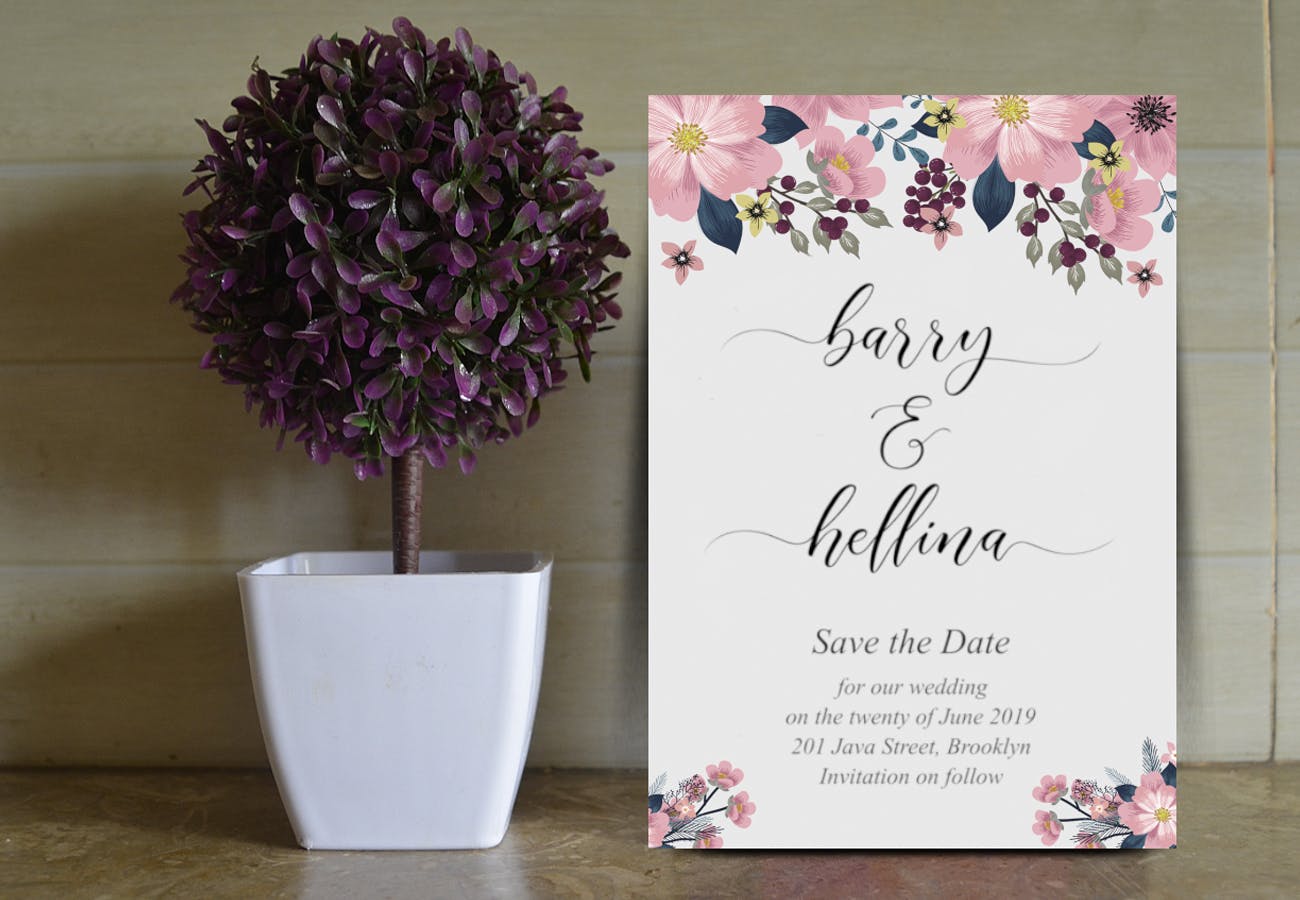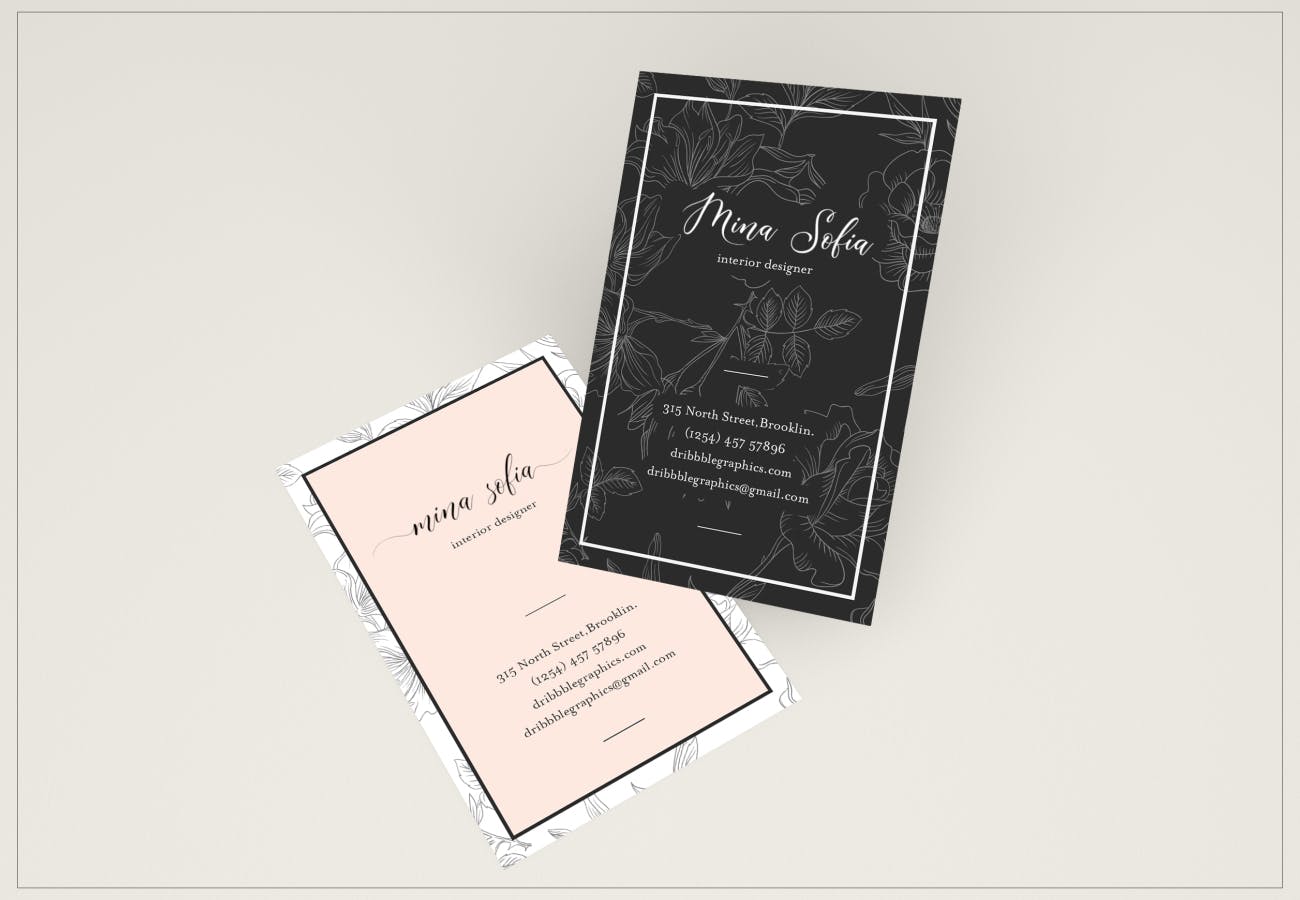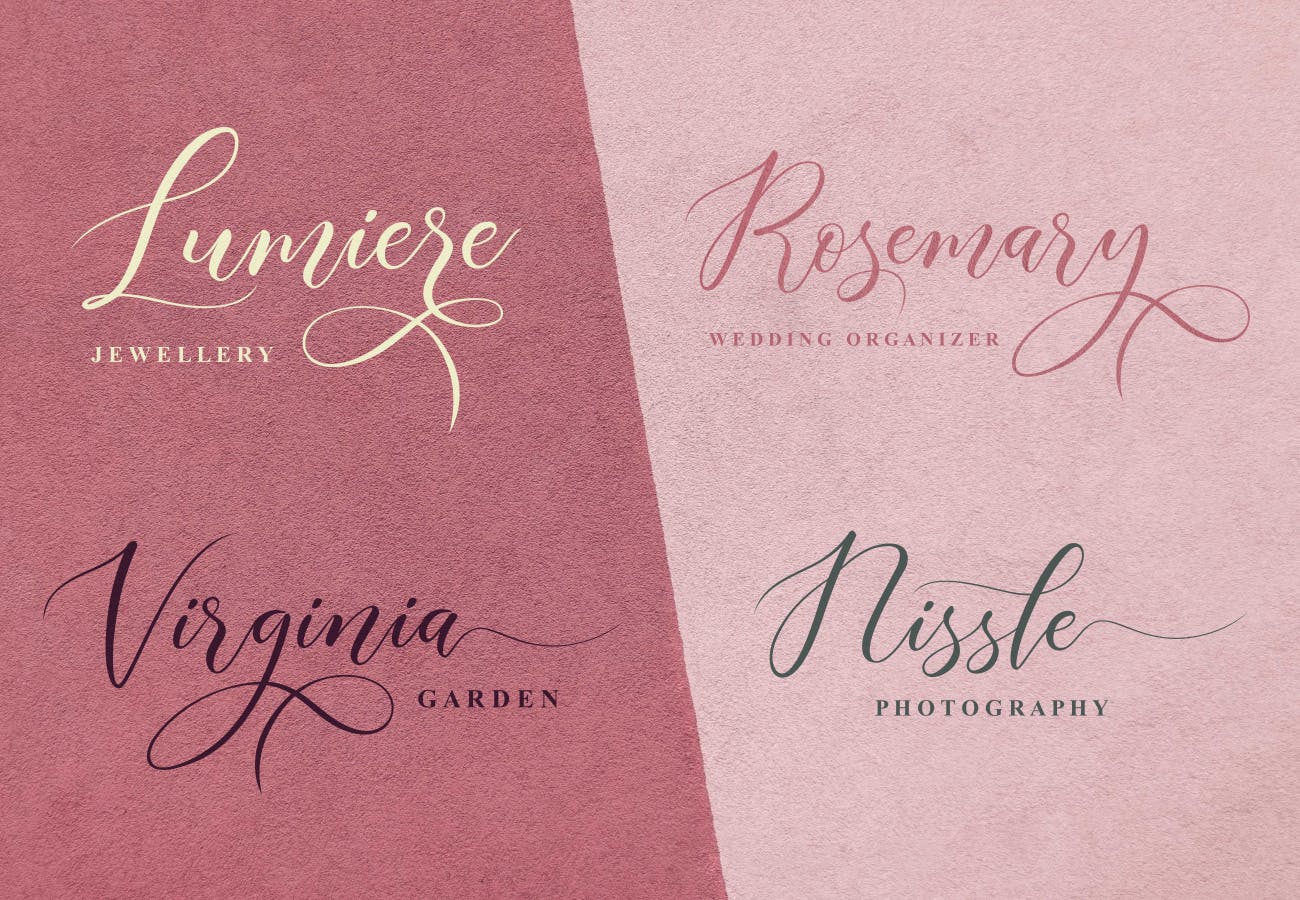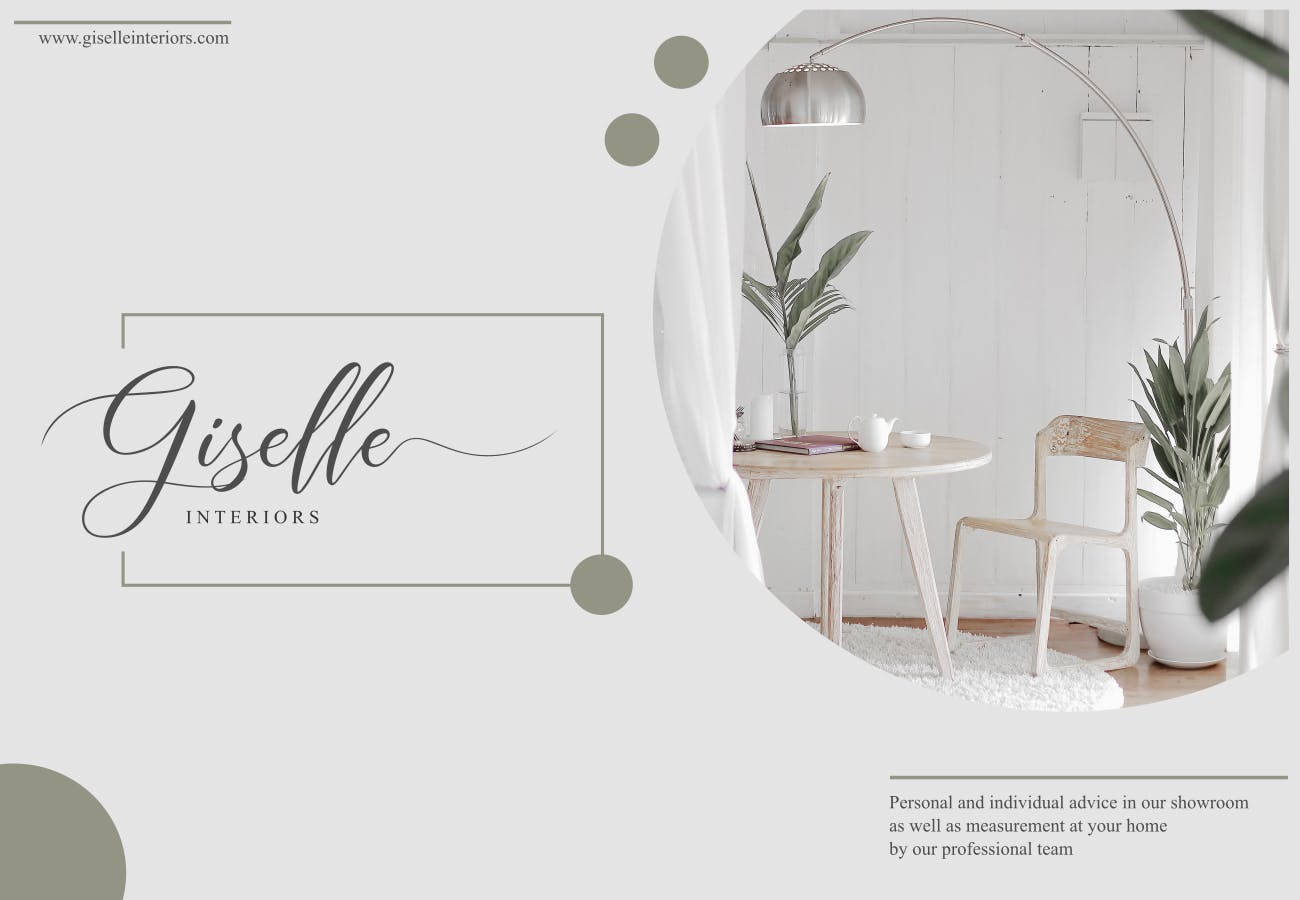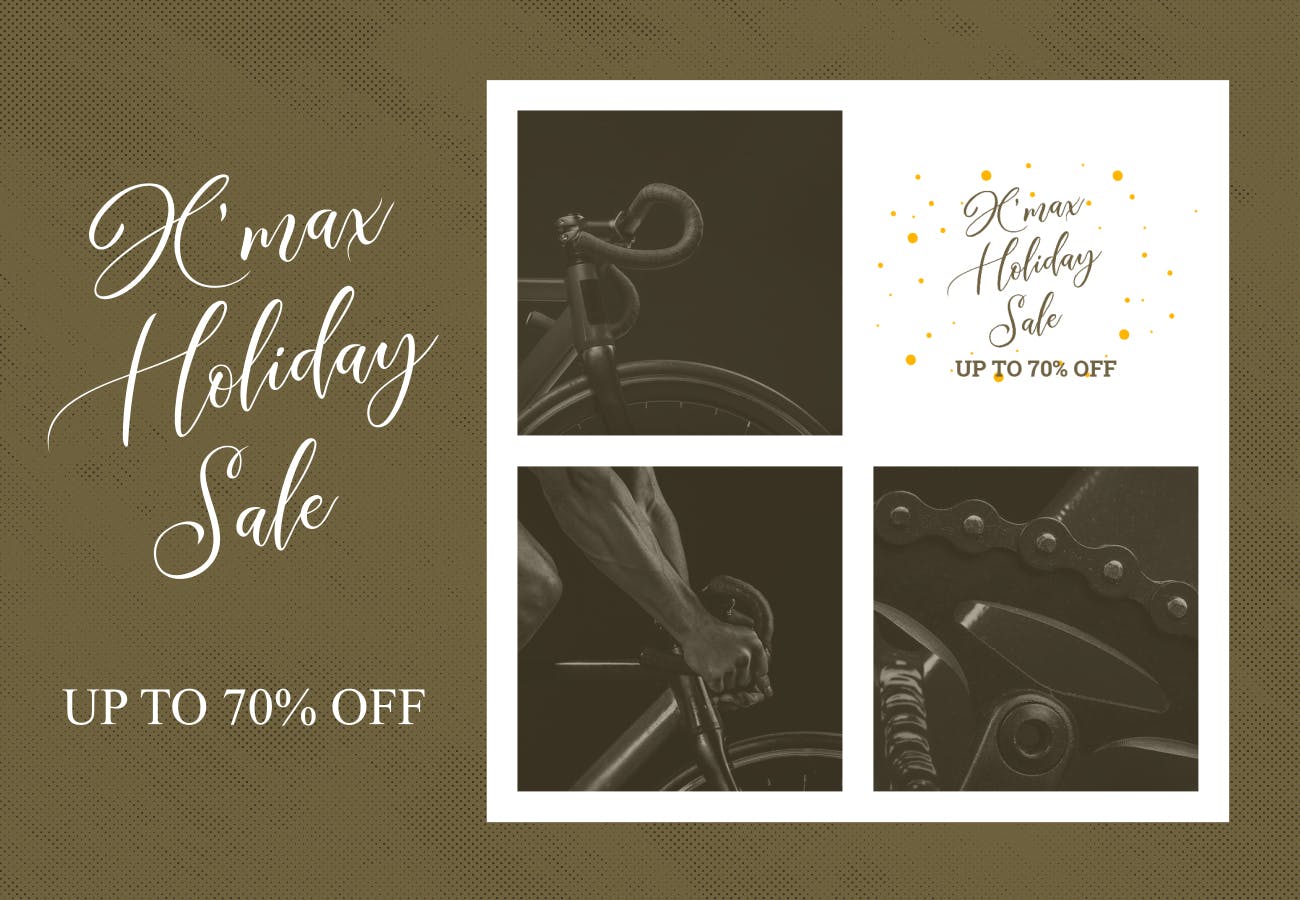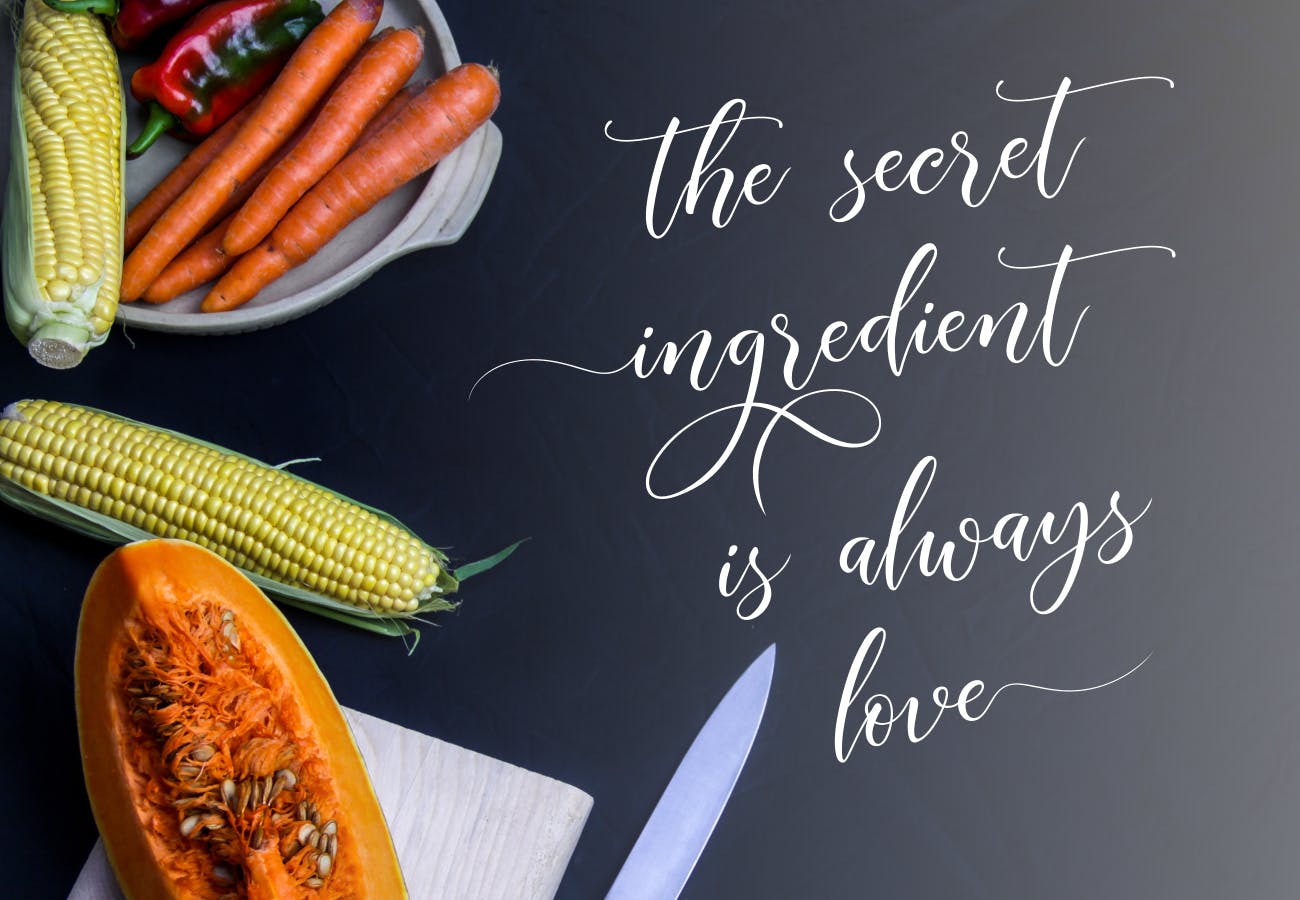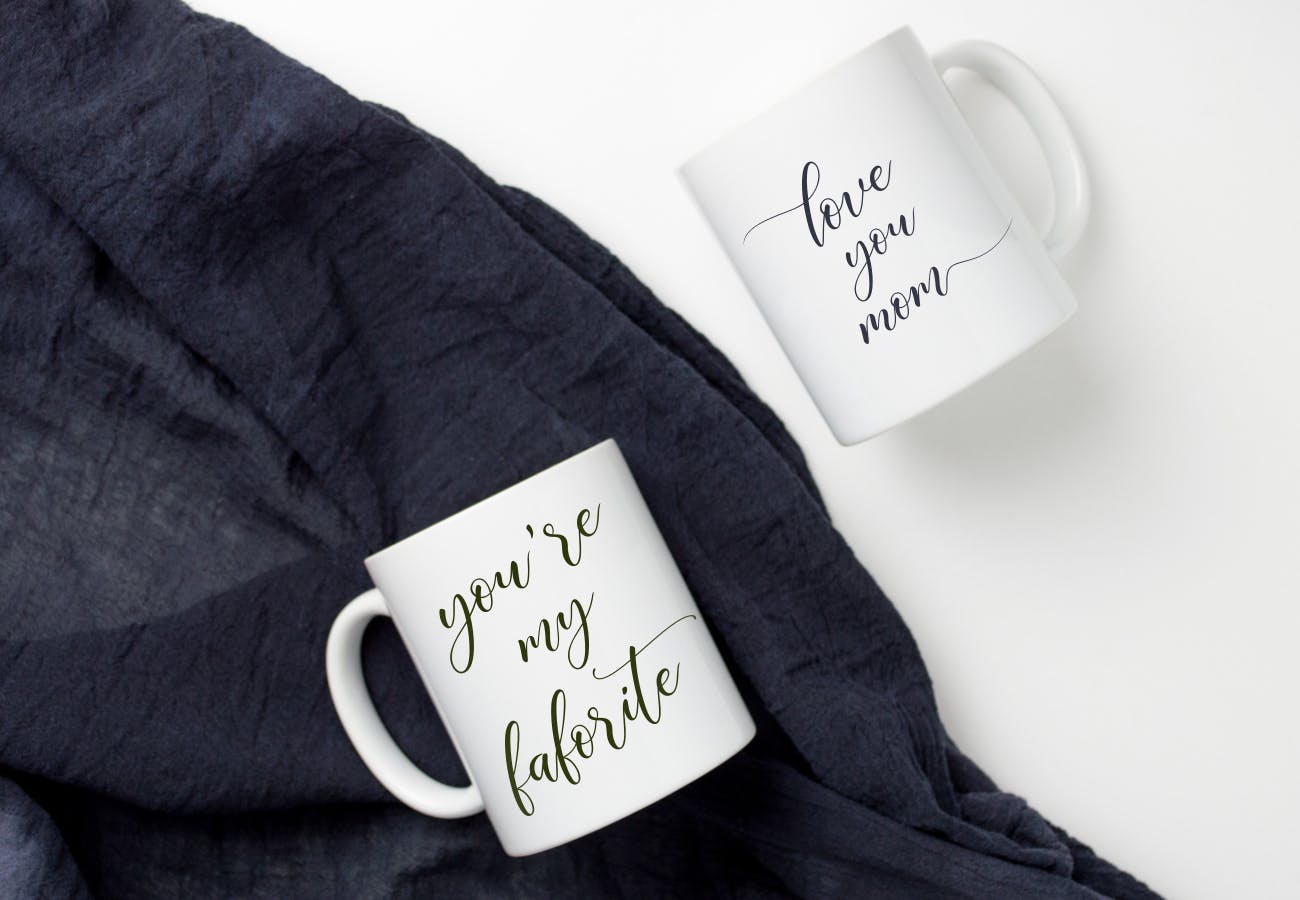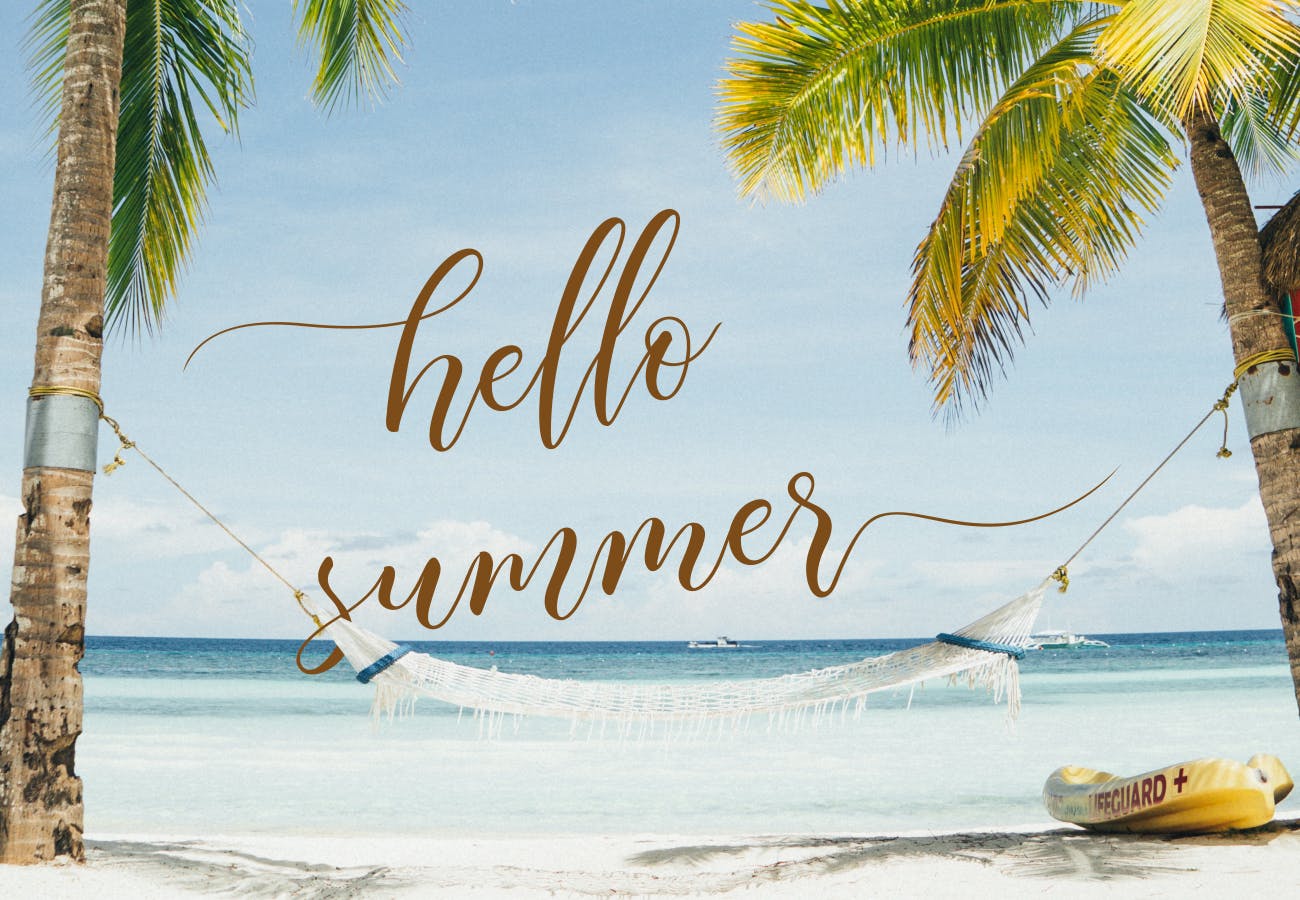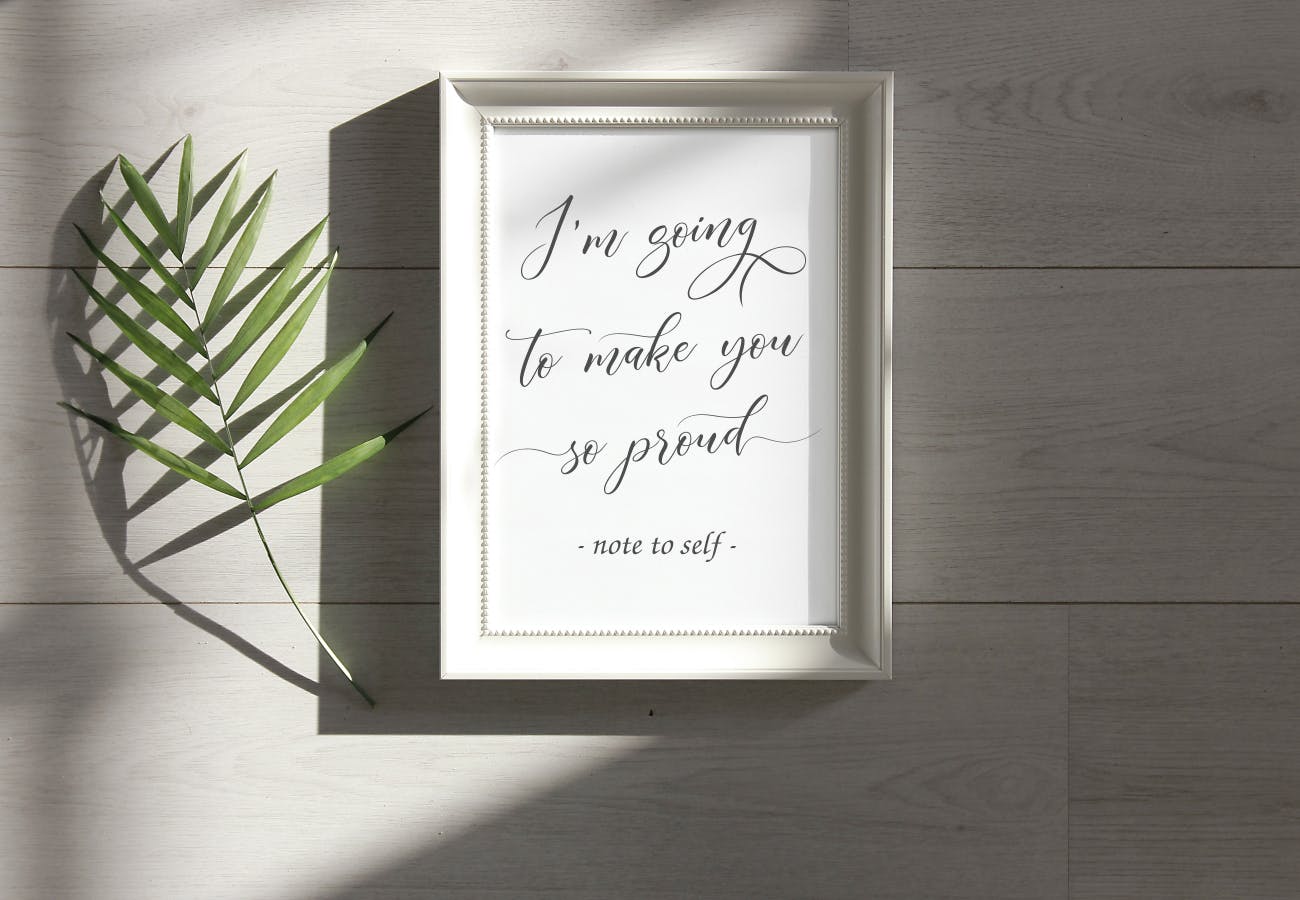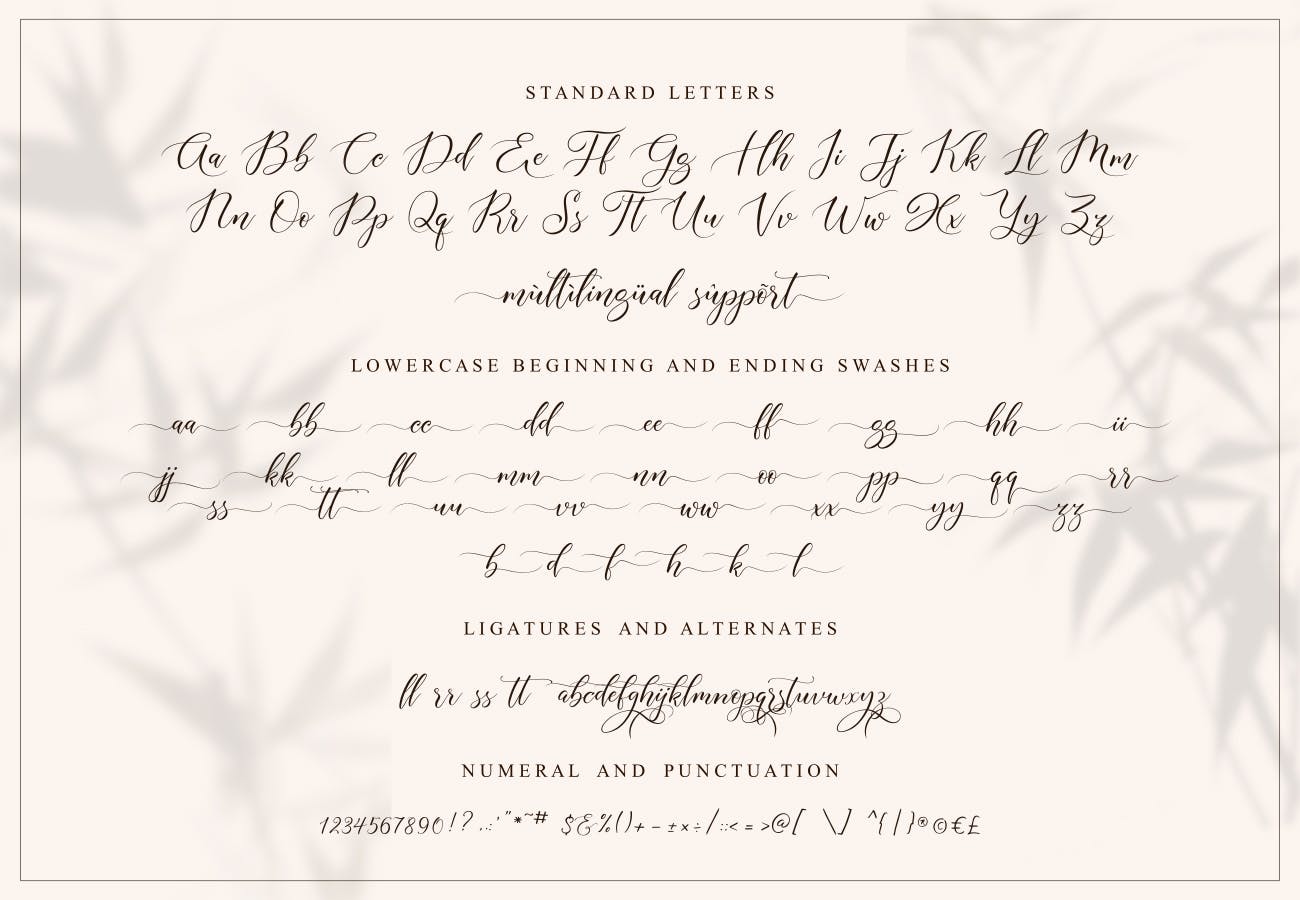
Free Aisyah Lovely Script Font
Free Aisyah Lovely Script Font is an elegant font for your professional works. It has a luxury hand-lettering style with a special ligature that makes it look perfect. This font is suitable for your works such as wedding invitation, gift cards, business cards, flyers, banners, and more. It is available for the OTF format file, you can install it on your computer, pad, phone, and any other devices. However, this demo font comes for a personal license use, but if you want to get more features, make a purchase for getting the special features.